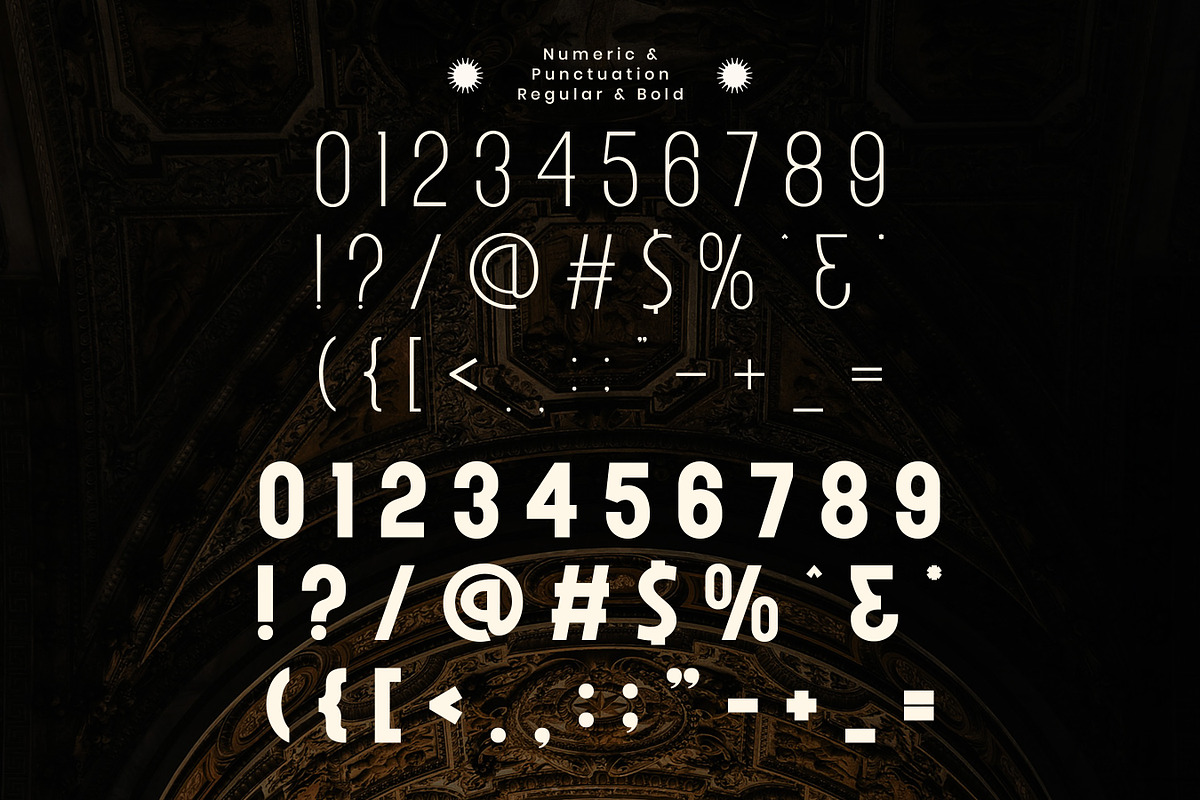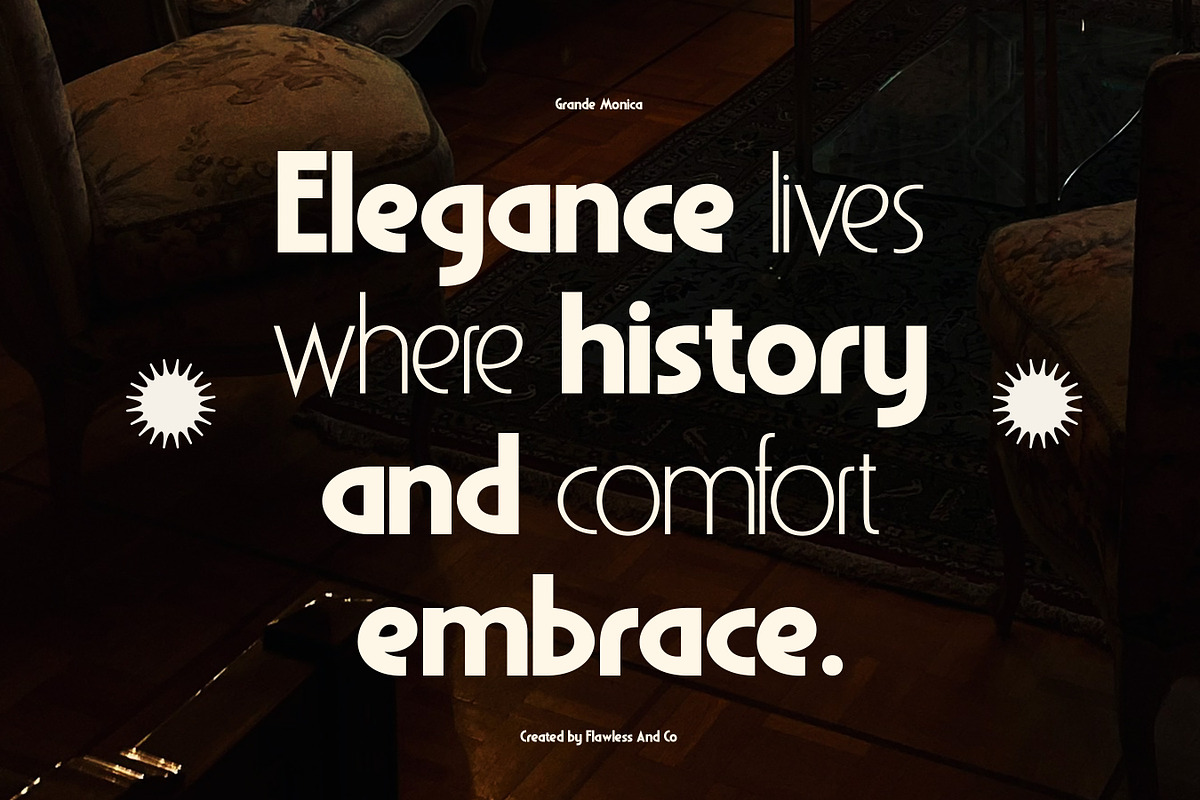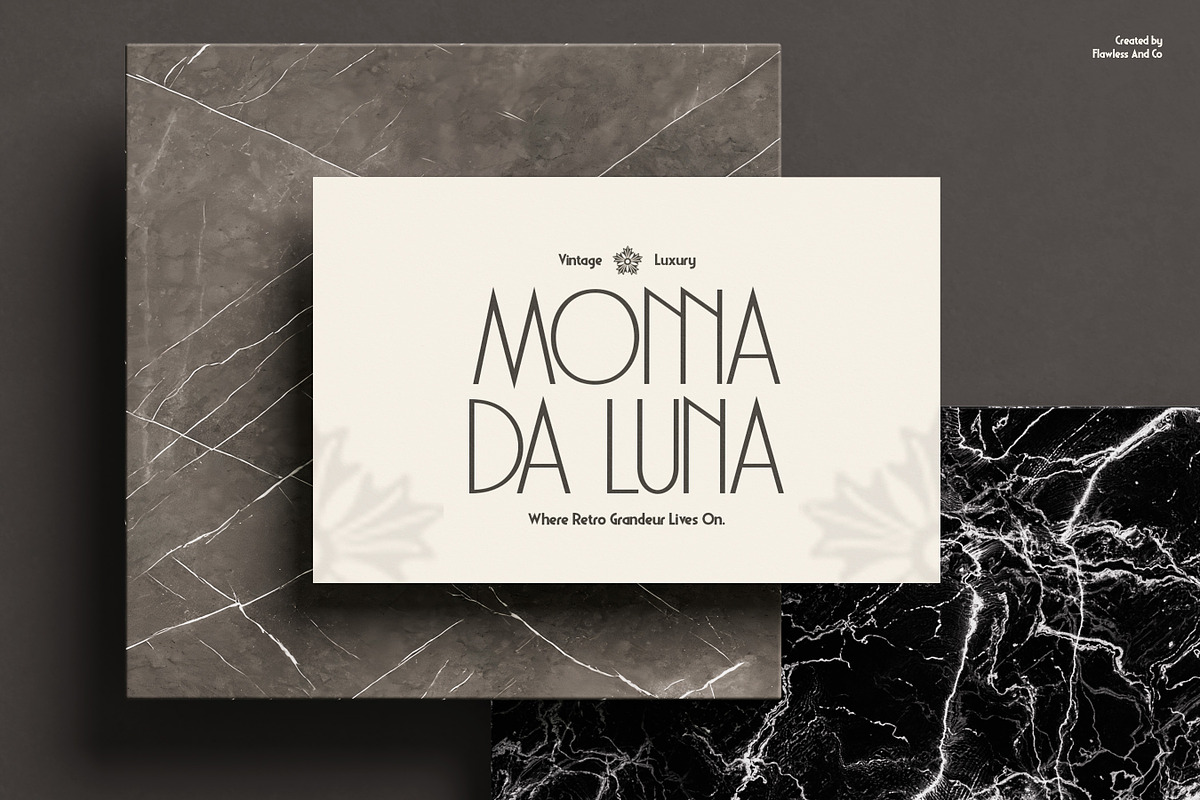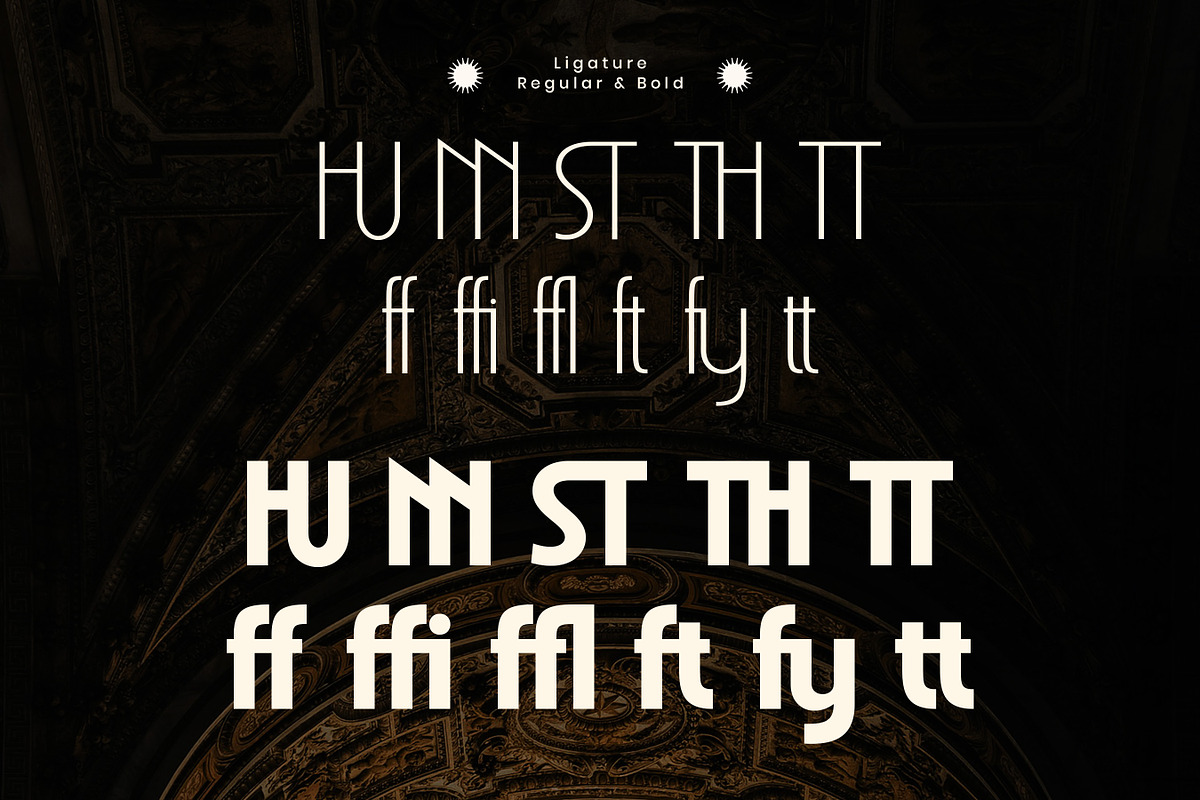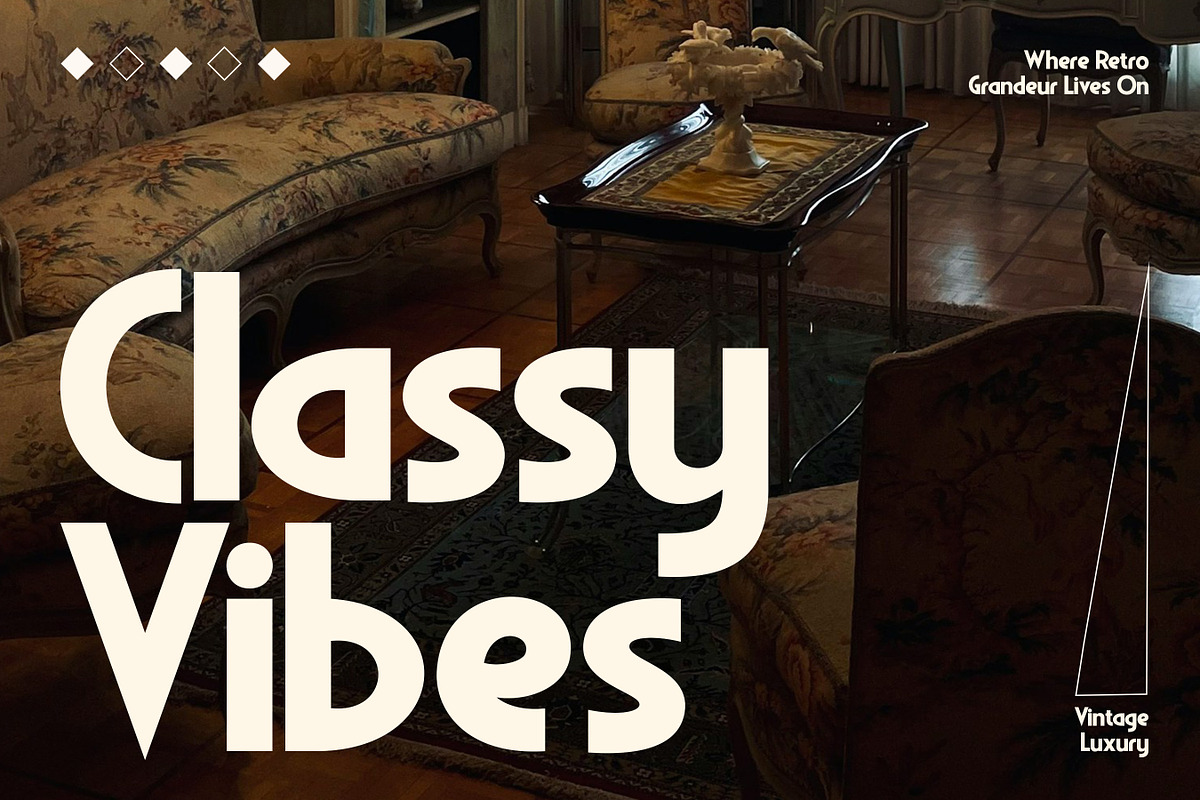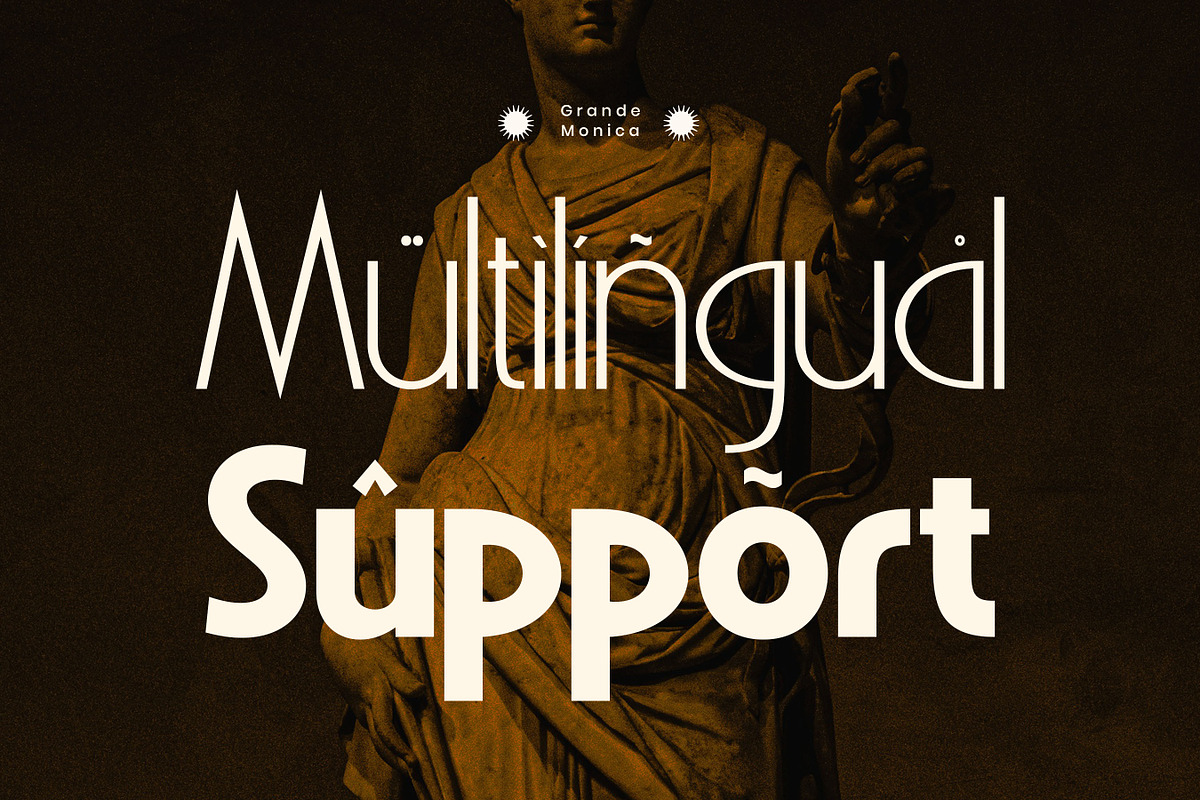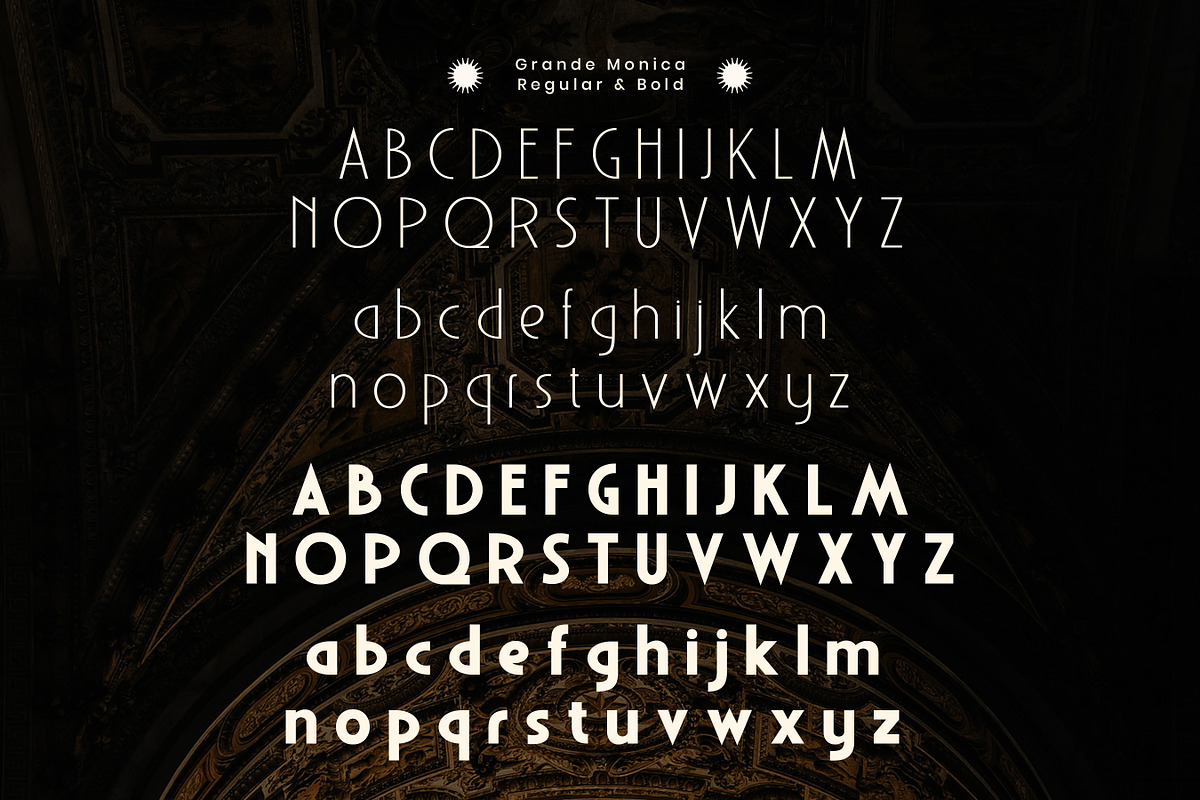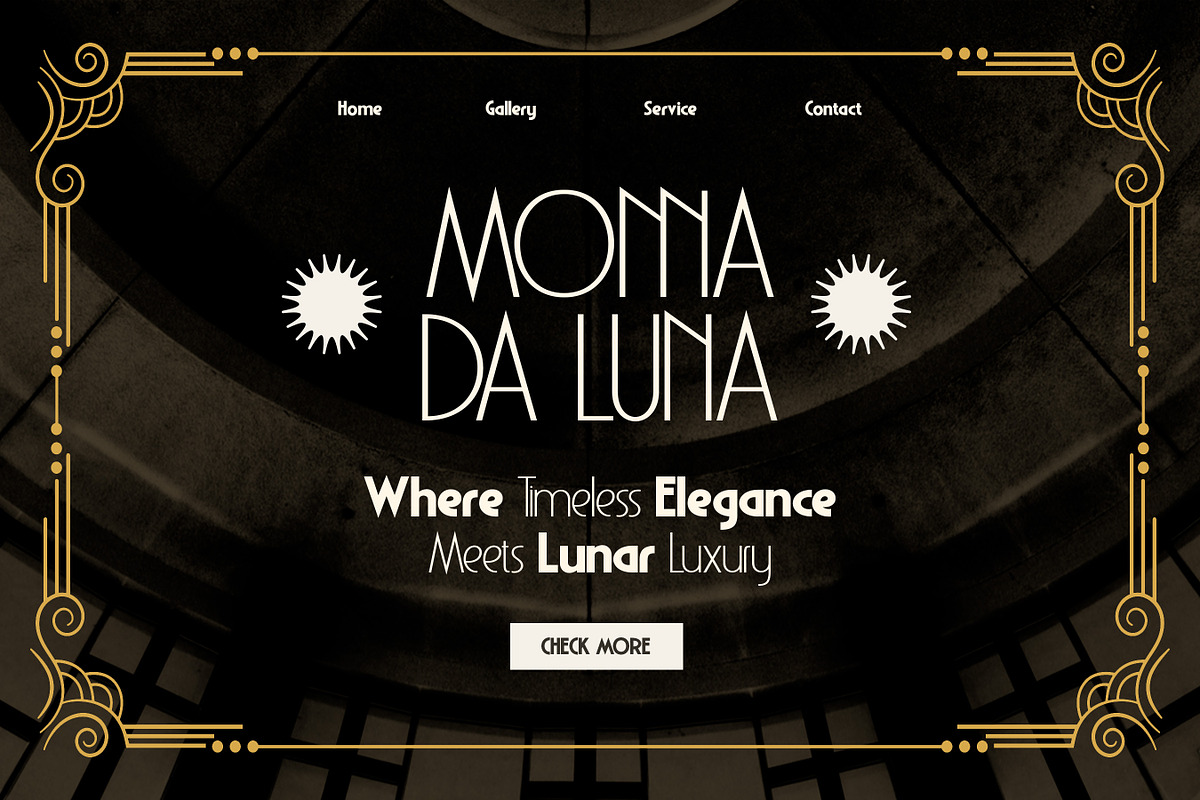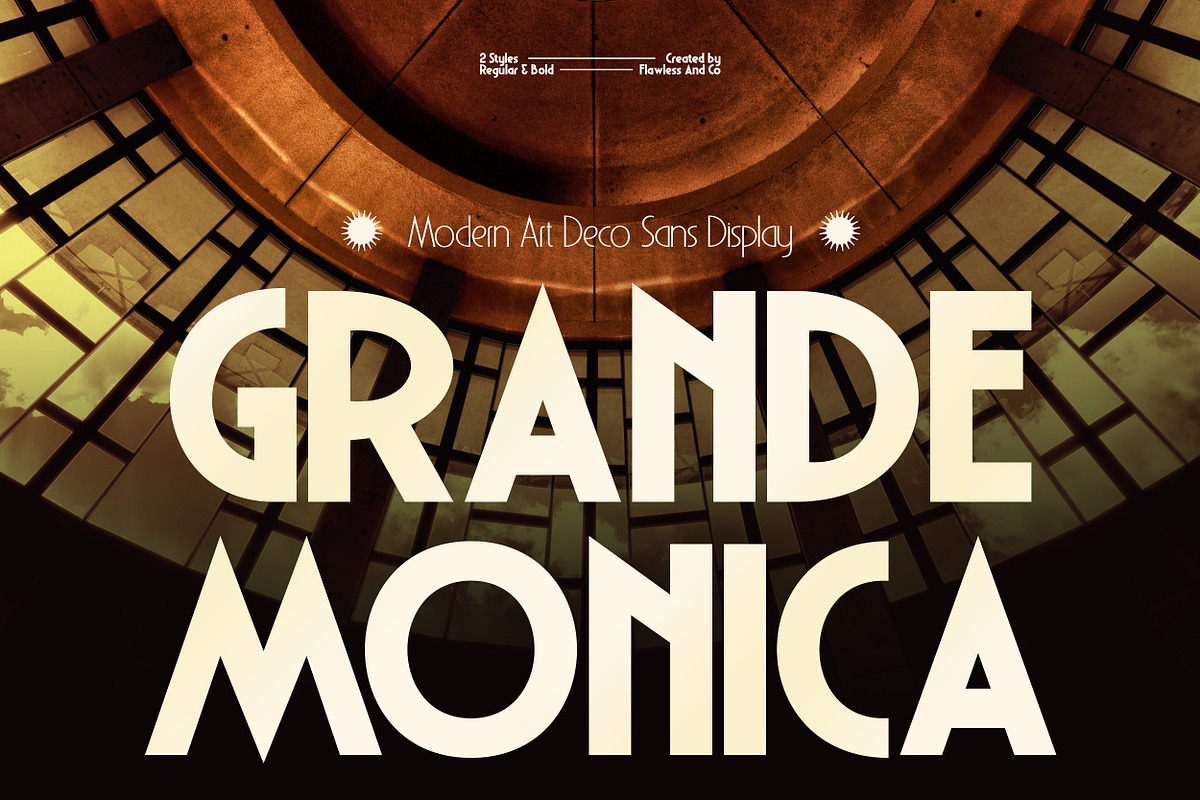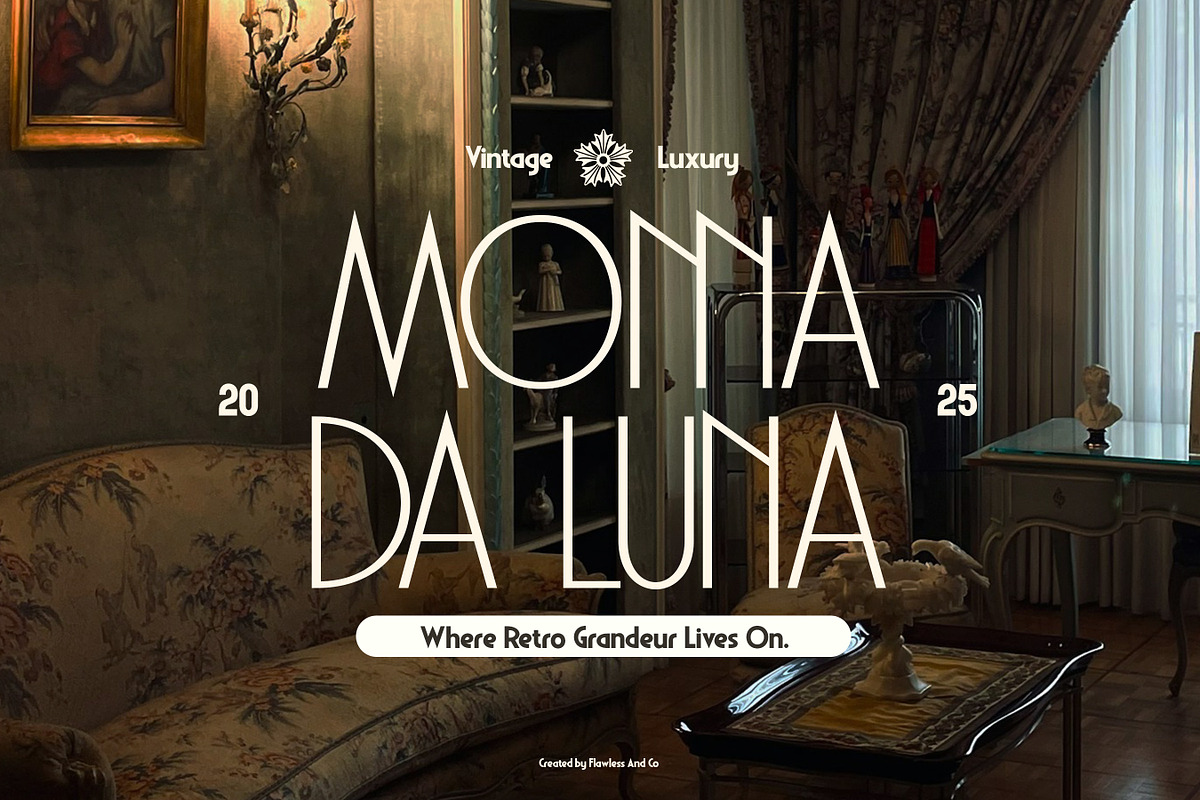
Grande Monica - Display Sans Serif Font
Grande Monica is a refined display sans serif font that blends modern Art Deco aesthetics with timeless vintage luxury. Featuring 2 versatile styles (Regular & Bold), this font is crafted to deliver strong visual impact while maintaining elegance and clarity. Its tall proportions, clean geometry, and distinctive letterforms make Grande Monica ideal for designs that demand sophistication, character, and confidence.
Who Should Use Grande Monica?
Grande Monica is perfect for designers and creators who want to deliver a bold, elegant, and vintage-inspired visual identity. It’s an excellent choice for branding professionals working on luxury logos, high-end product packaging, and premium brand systems that require a strong yet refined typographic presence. Graphic designers creating editorial layouts, magazine covers, posters, and promotional materials will appreciate its striking display style and confident proportions.
Suitable for:
- Branding and logo design
- Luxury and premium brand identities
- Fashion, beauty, and lifestyle brands
- Editorial design (magazines, headlines, covers)
- Posters, banners, and promotional materials
- Product packaging and labels
- Social media graphics and marketing visuals
- Creative projects that require an elegant, bold, and timeless look